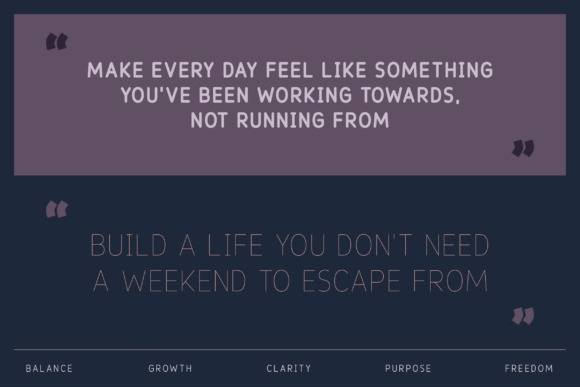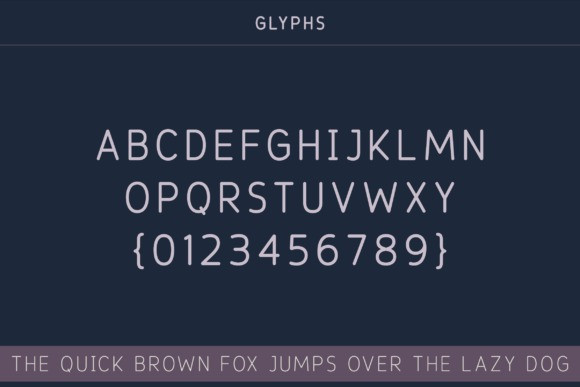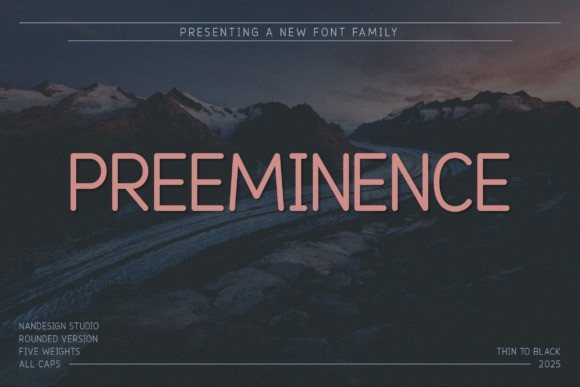
Preeminence Rounded Font
Celestique Rounded Font is a modern all-caps sans serif font family designed to bring clarity, warmth, and bold personality to your creative projects. With its soft-rounded edges and sleek, geometric construction, this font is both highly legible and aesthetically balanced across five versatile weights: Thin, Light, Regular, Bold, and Black.
This font family was created to help designers, crafters, and brand creators achieve a clean yet friendly visual identity. Whether you’re building a logo, packaging design, social media visuals, or high-impact headlines, Celestique Rounded adapts beautifully while adding a polished, confident touch.